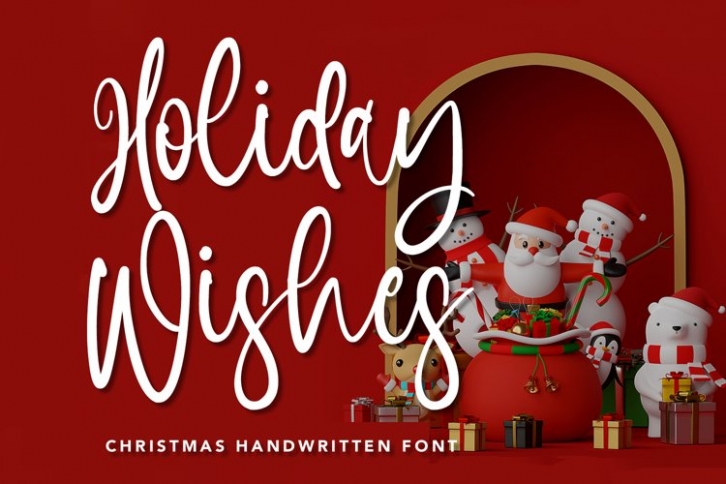
Holiday Wishes is a trendy and unique font with an authentic style. It was designed by plusstore and it's a great choice for creative people who need such a font. It was released on June 12, 2021 and the file size is 4.15 MB. Holiday Wishes will add an organic vibe to any design idea!